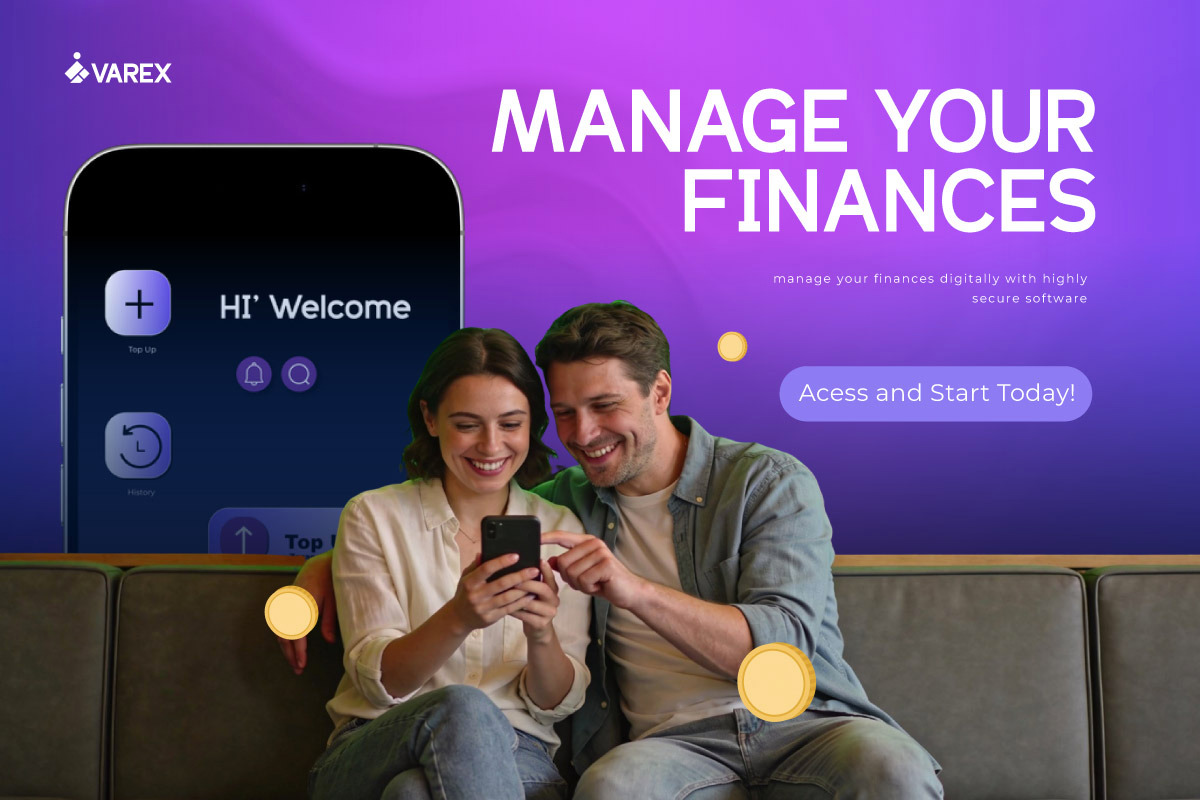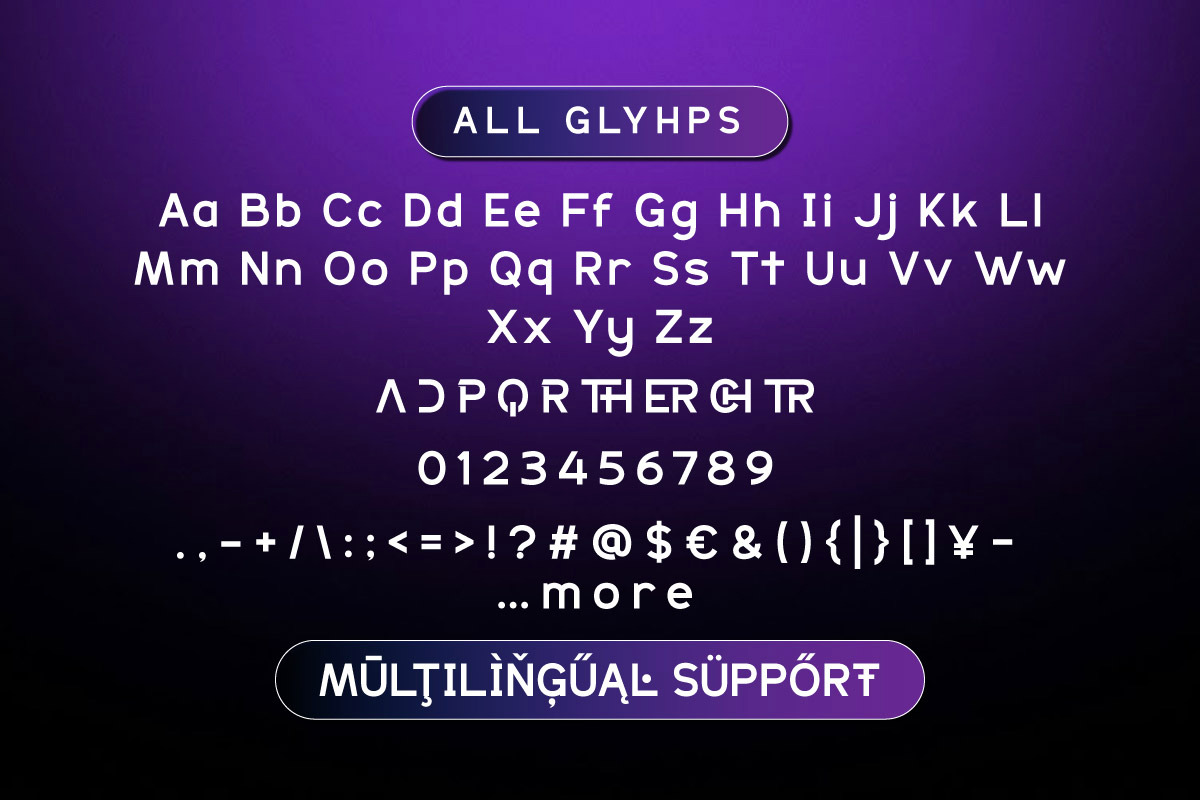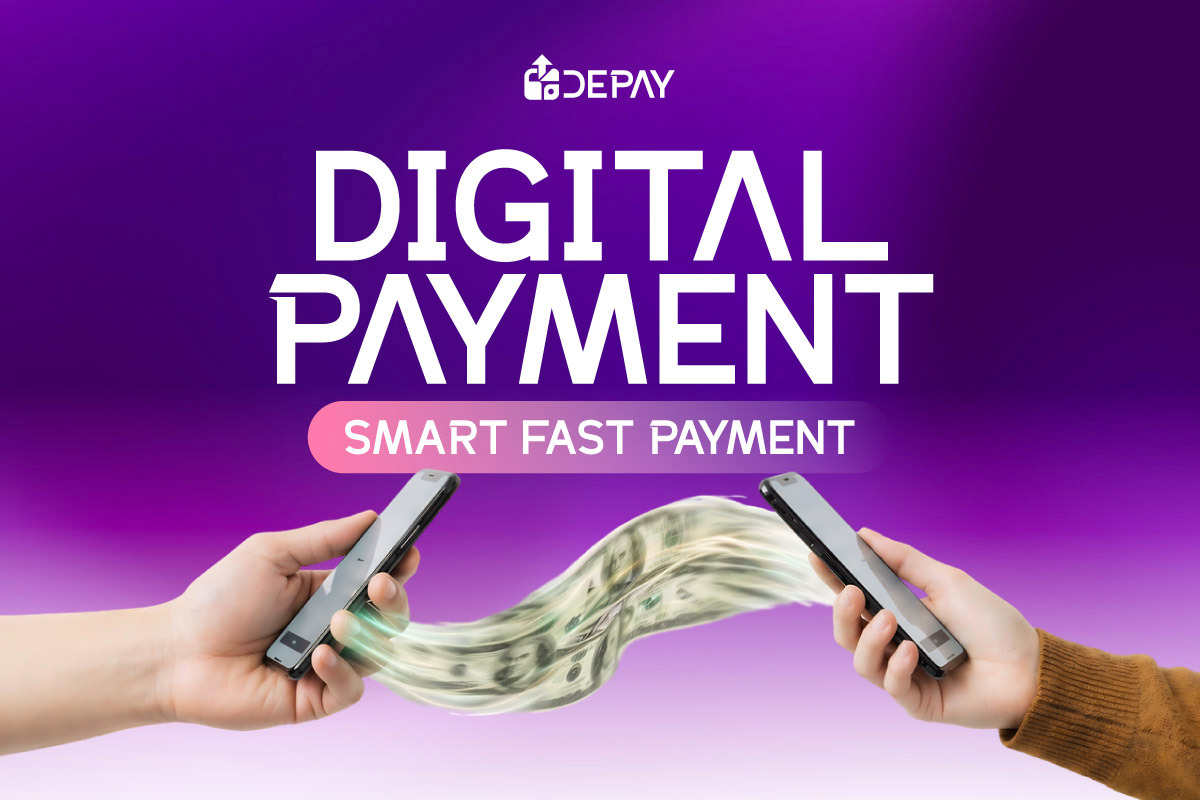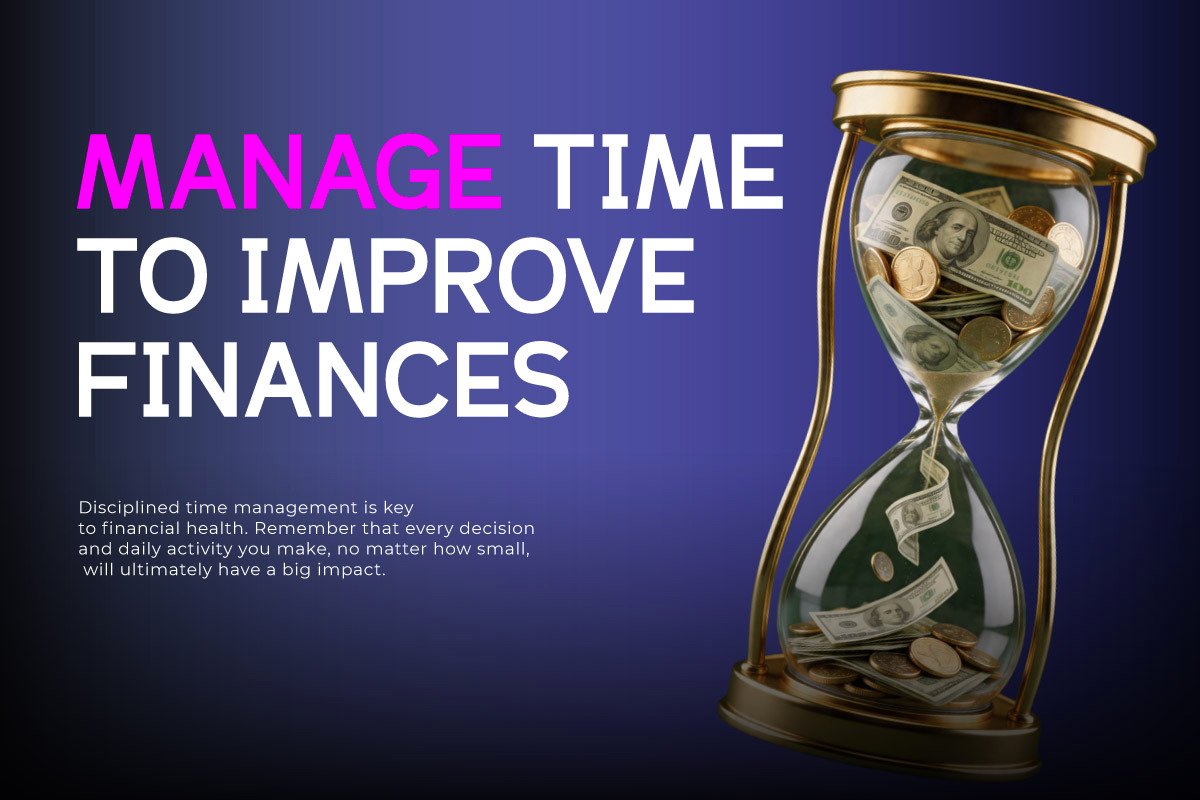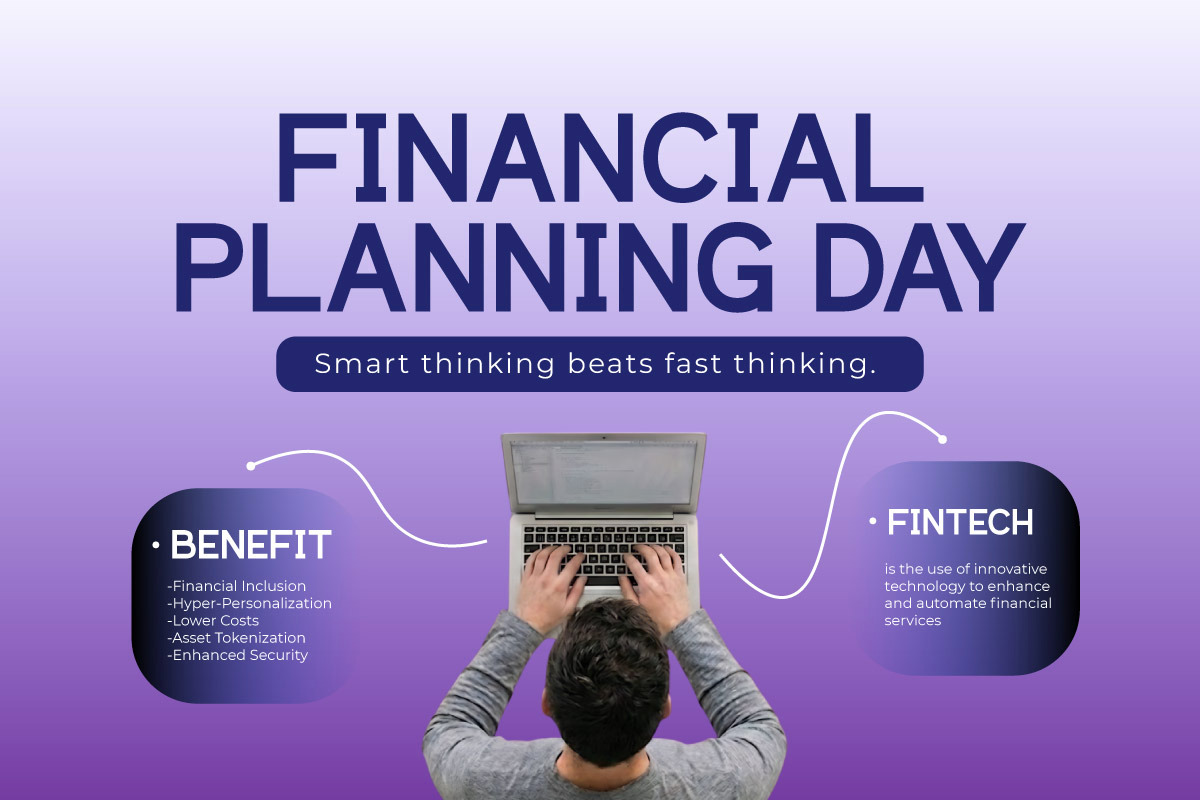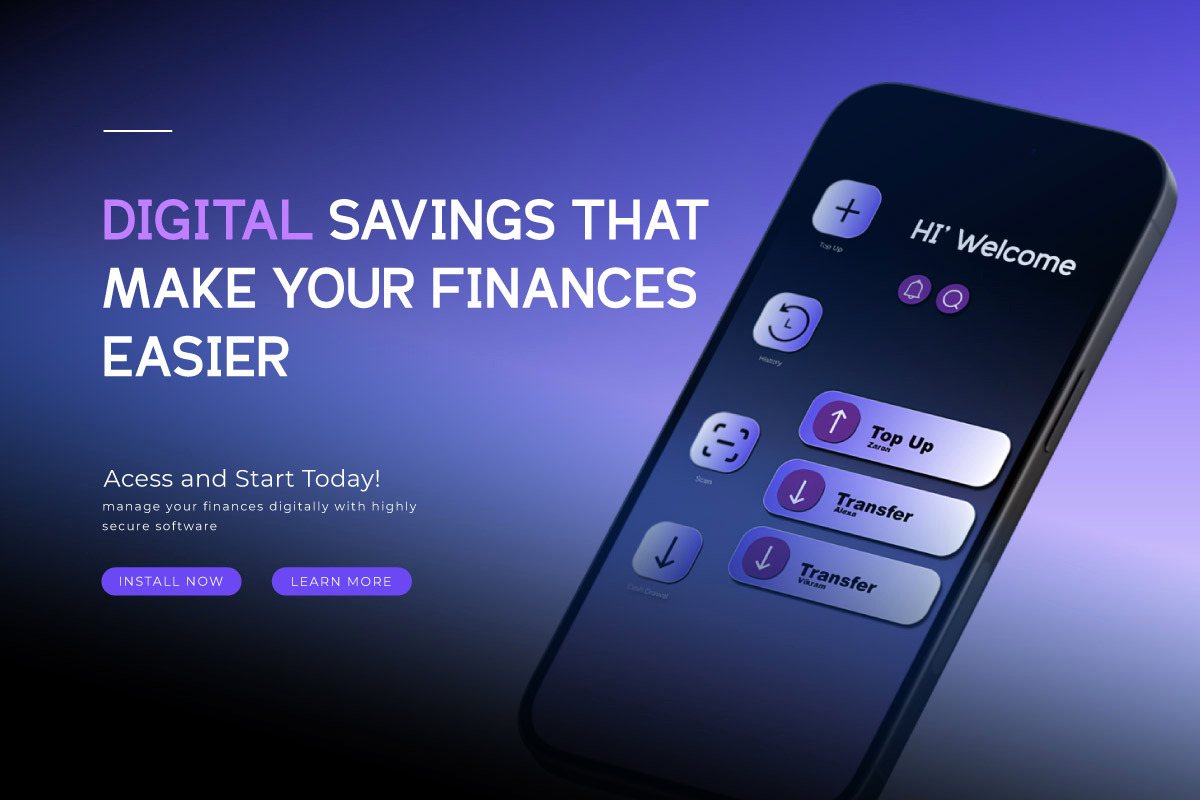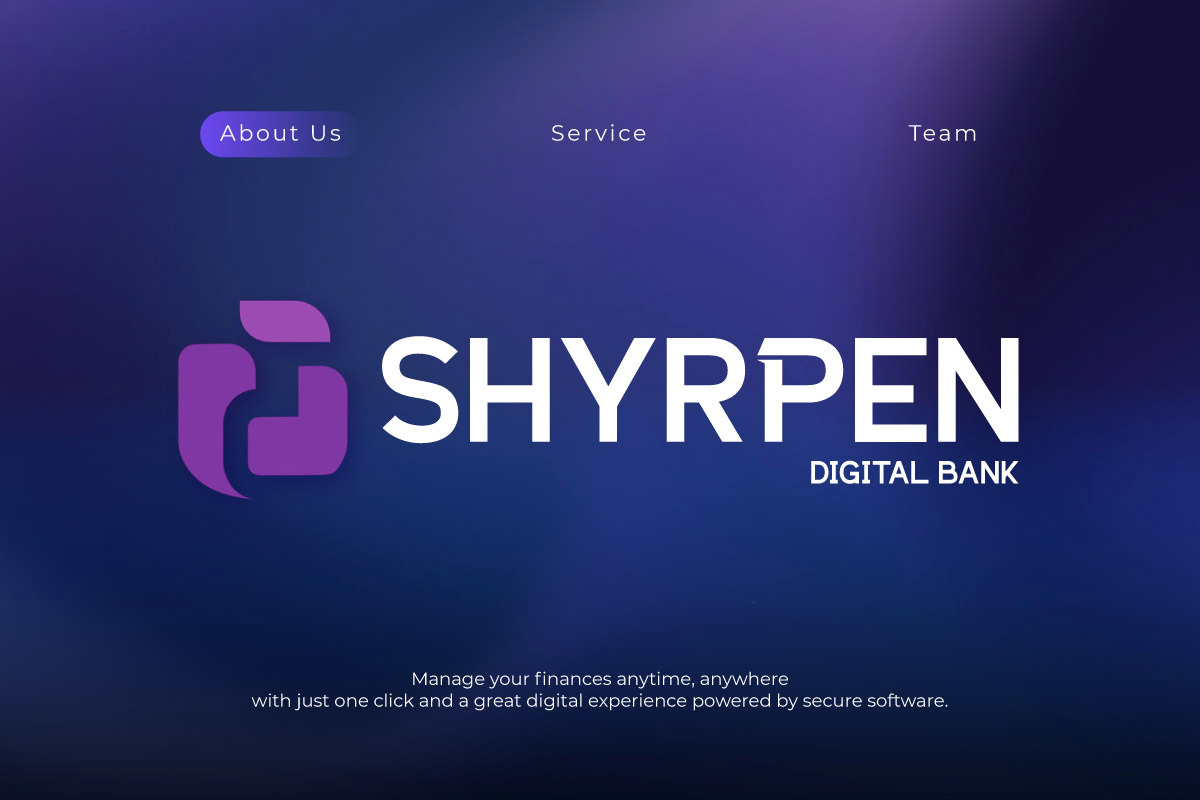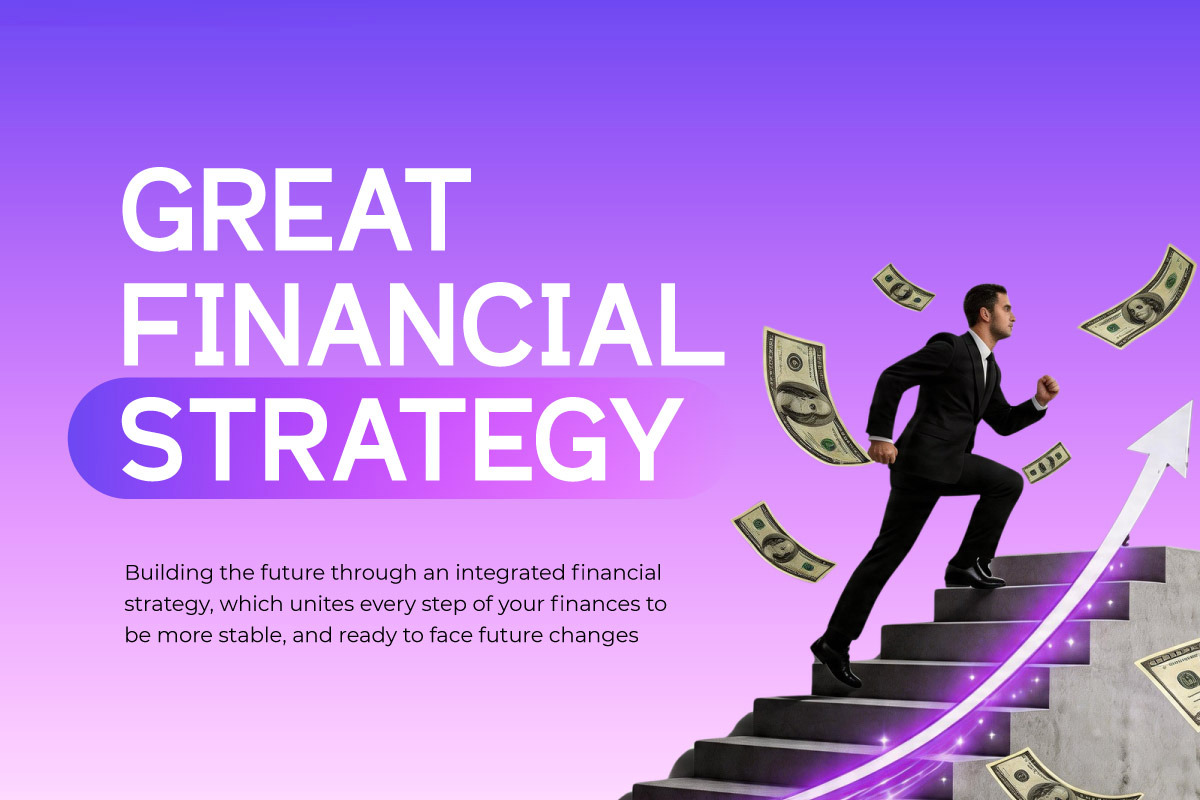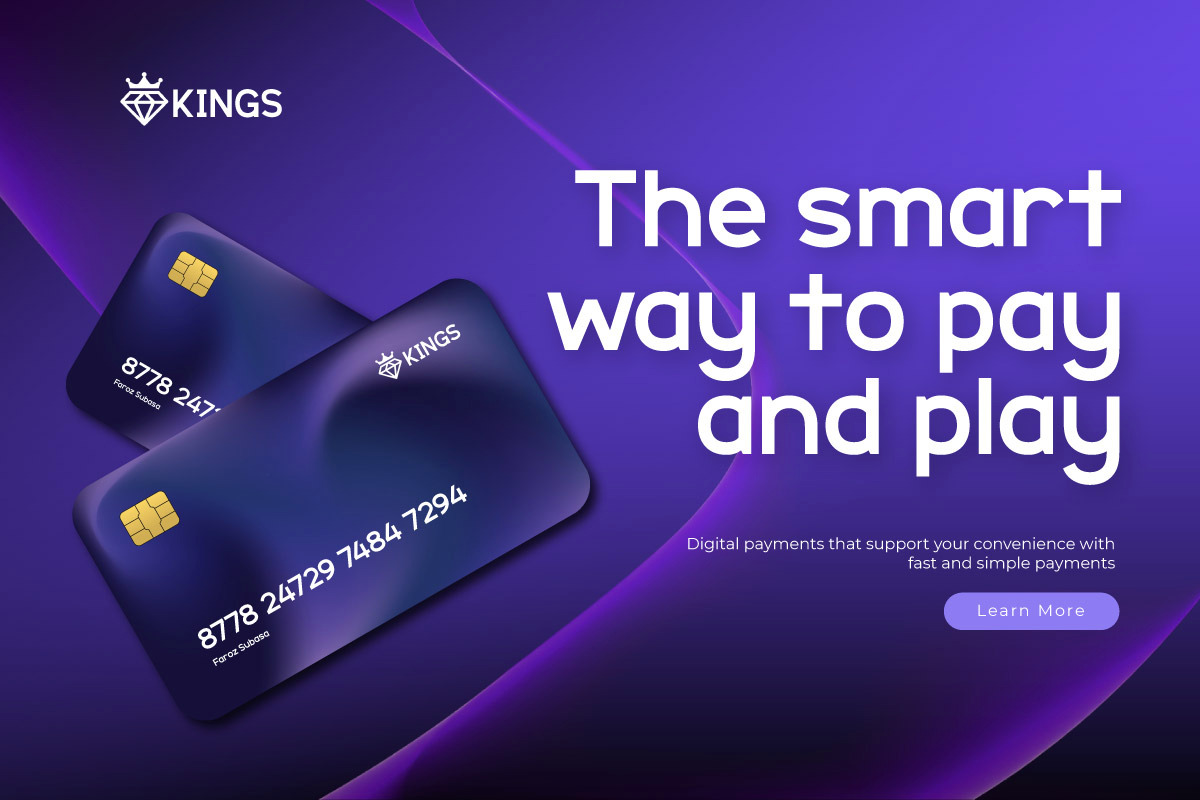
Duitech - Finance Technology
Duitech is a Modern Sans Serif typeface specifically designed for the visual needs of the Fintech and digital banking industries. Featuring clean, precise, and professional letterforms, this font delivers a premium and trustworthy impression. Its visual characteristics are ideal for building brand identities within a dynamic and technology-oriented Modern Financial Ecosystem.
The letter anatomy is optimized to support a perfect Seamless Transaction UI experience. Offering exceptional readability on digital devices, Duitech ensures that every balance figure, transaction detail, and financial dashboard navigation appears crystal clear. Its design structure helps create app interfaces that are efficient, neat, and provide users with a sense of security while managing financial data.
As a future-ready banking typography solution, Duitech features ligatures, alternates, and multilingual support for extensive design flexibility. This font is the perfect choice for corporate branding, crypto platforms, and digital banking identity systems that require a minimalist yet powerful aesthetic. Duitech helps designers achieve modern, stable, and innovative financial visual standards.
- PUA Encoded: All glyphs are fully accessible without any additional software.
- Multilingual Support: Fully supports 85+ languages, including: Afrikaans, Albanian, Asu, Basque, Bemba, Bena, Breton, Catalan, Chiga, Cornish, Croatian, Czech, Danish, Dutch, Embu, English, Esperanto, Estonian, Filipino, Finnish, French, Friulian, Galician, Gusii, Hungarian, Indonesian, Irish, Italian, Kabuverdianu, Kalenjin, Kamba, Kikuyu, Kinyarwanda, Latvian, Lithuanian, Lower Sorbian, Luo, Luxembourgish, Luyia, Machame, Makhuwa-Meetto, Makonde, Malagasy, Maltese, Manx, Meru, Morisyen, North Ndebele, Norwegian Bokmål, Norwegian Nynorsk, Nyankole, Oromo, Polish, Portuguese, Quechua, Romanian, Romansh, Rombo, Rundi, Rwa, Samburu, Sango, Sangu, Scottish Gaelic, Sena, Serbian, Shambala, Shona, Slovak, Slovenian, Soga, Somali, Spanish, Swahili, Swedish, Swiss German, Taita, Teso, Turkish, Upper Sorbian, Uzbek (Latin), Volapük, Vunjo, Walser, Zulu.